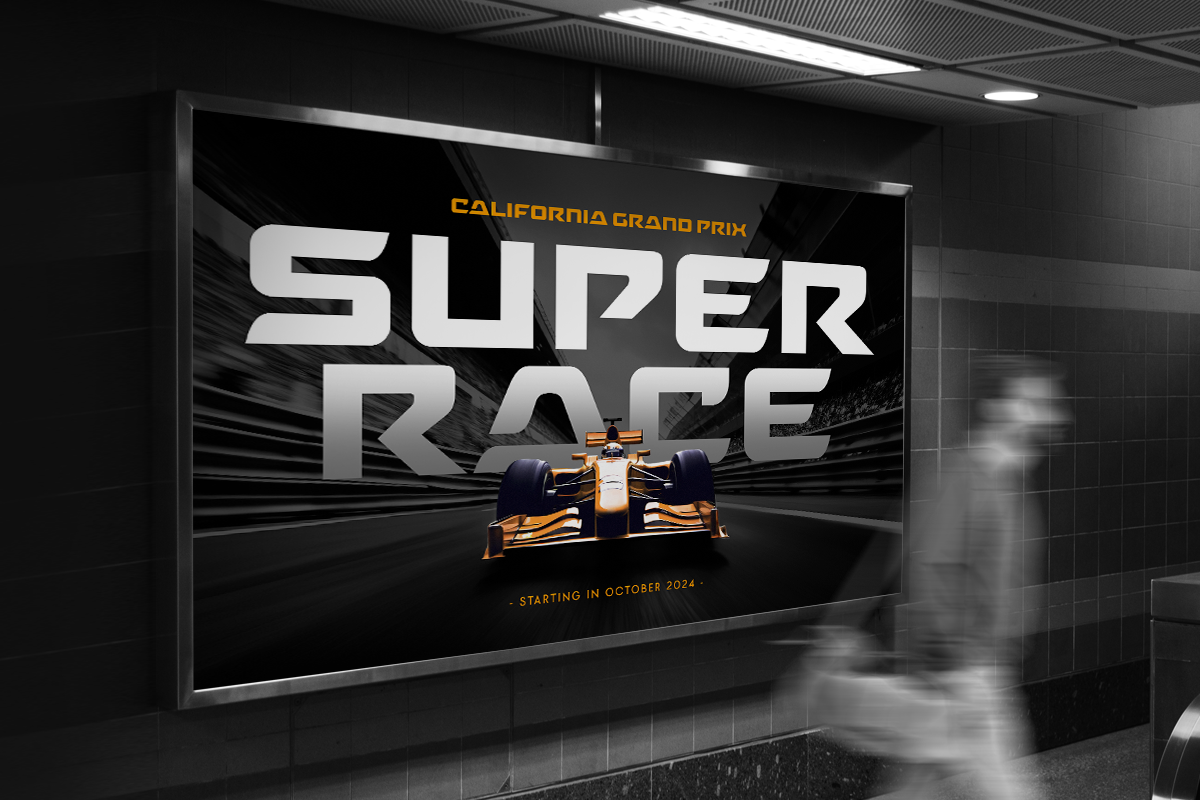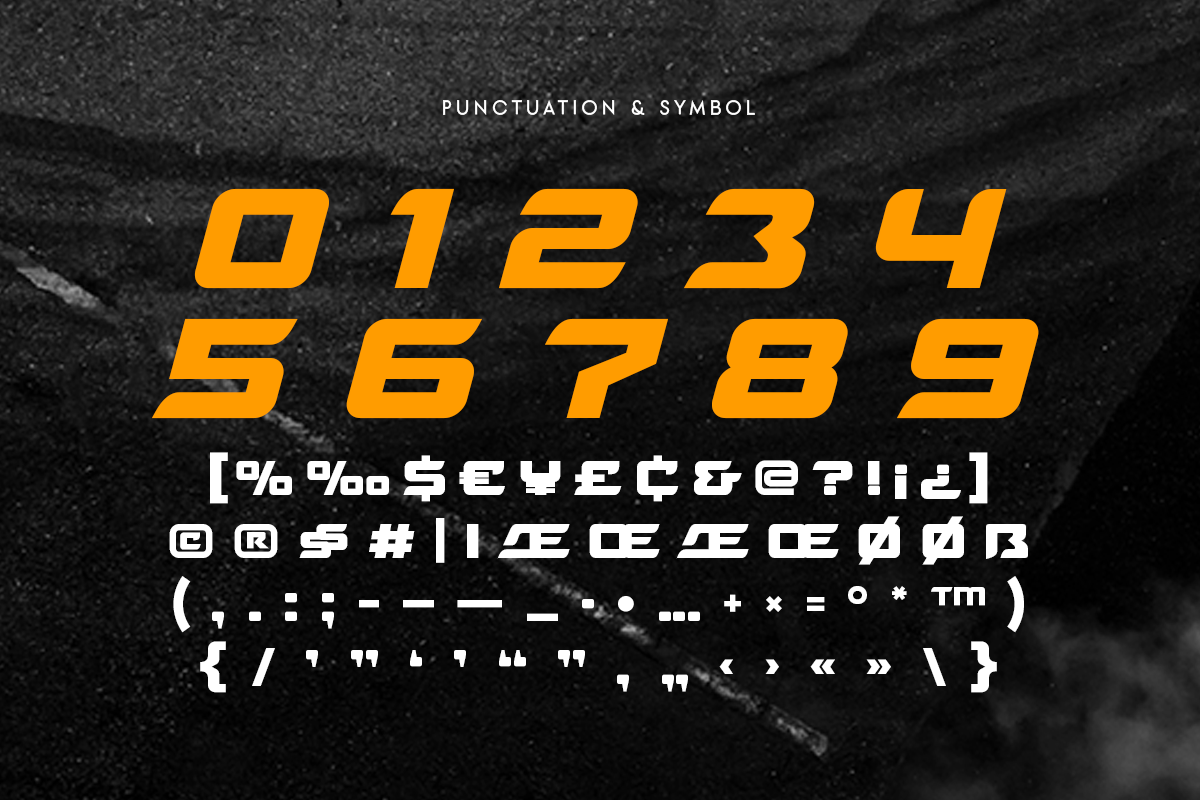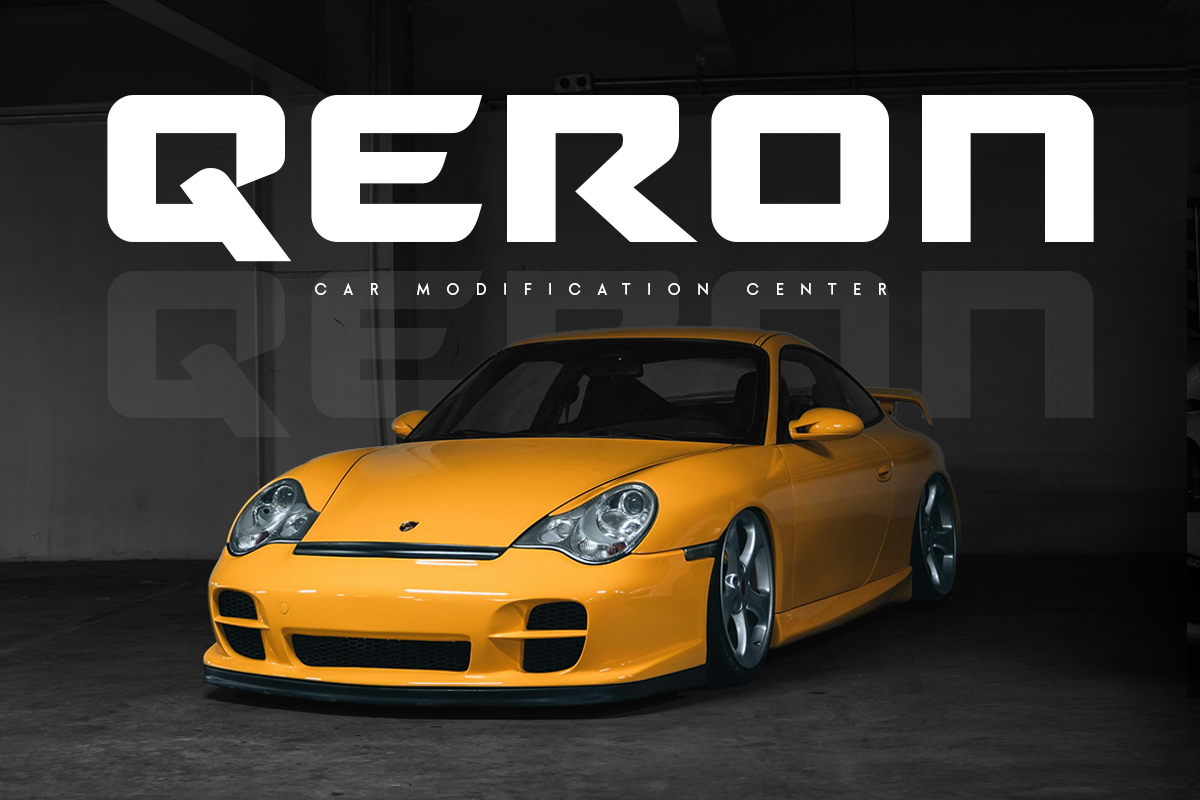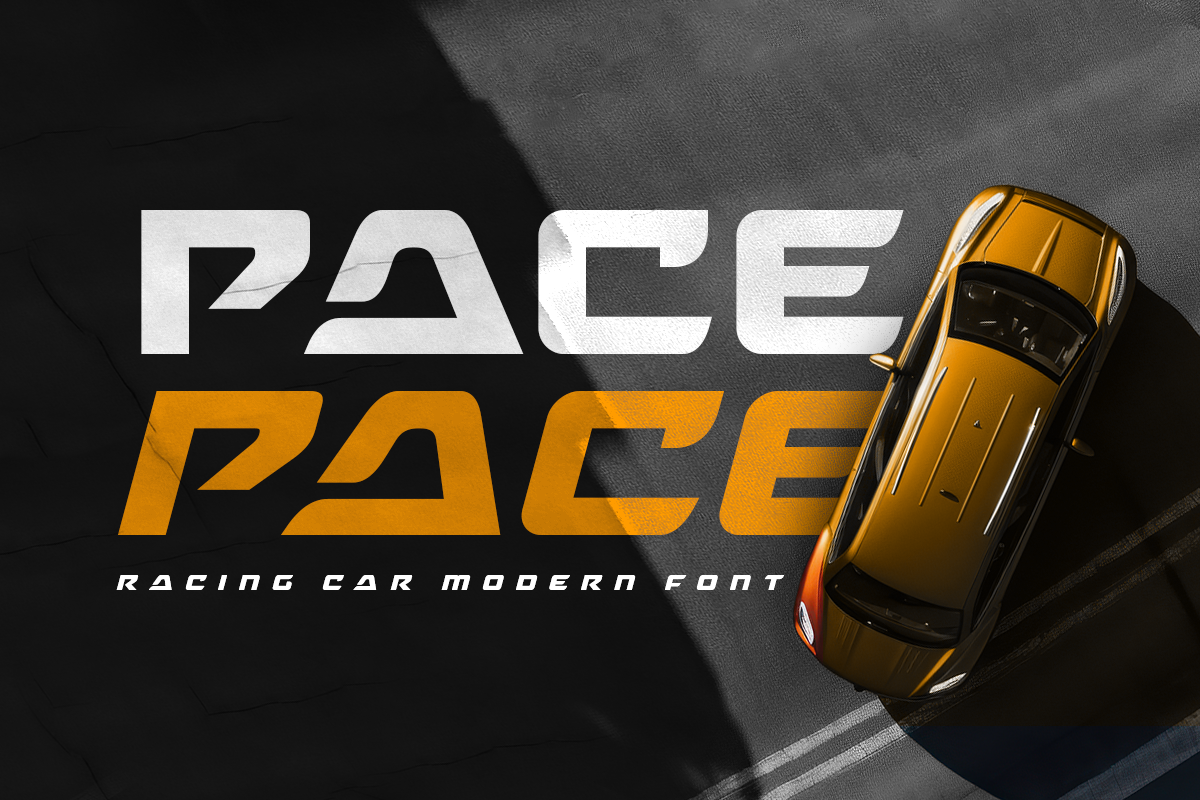
Pace - Racing Car Modern Font
Pace is a Modern Ultra Sport font that created special for Branding, Title and more stand out typography for sport and action. It's so perfect to add your style and headline overview for sport, technology, actions, and fighting theme. And specially for this font, we crafted for bold action style and modern feels so enjoy to create any project that will show your main idea out.
Pace Racing Car Modern font ready with:
- Creative characters prepared to get best results
- Ready with Regular and Italic Version
- Ready with All Uppercase characters